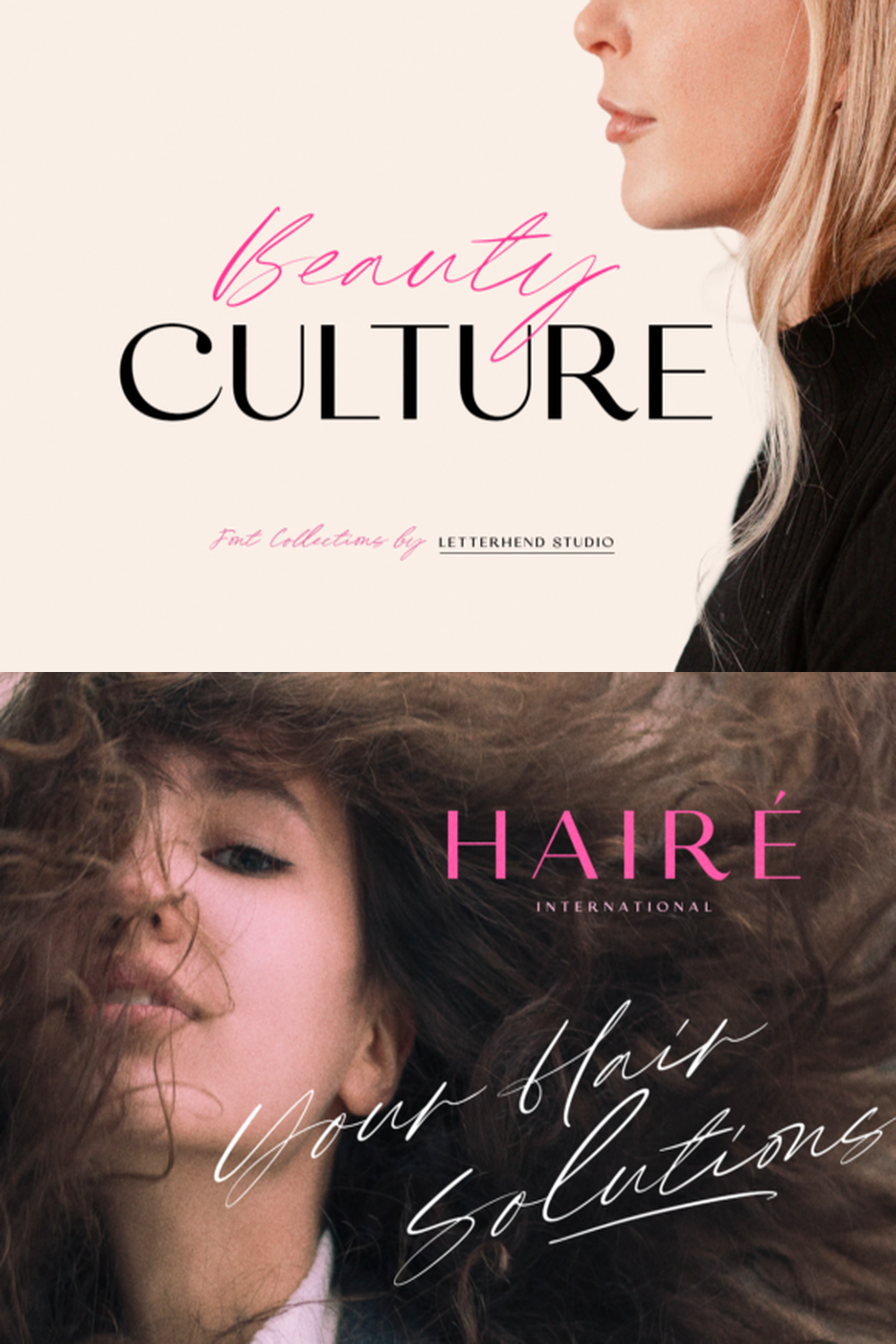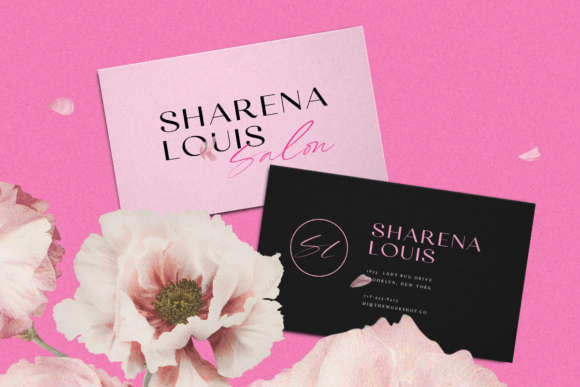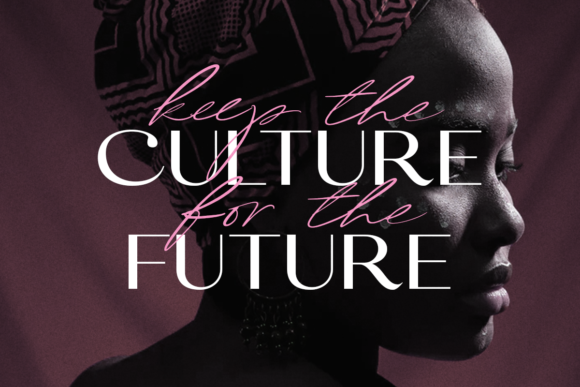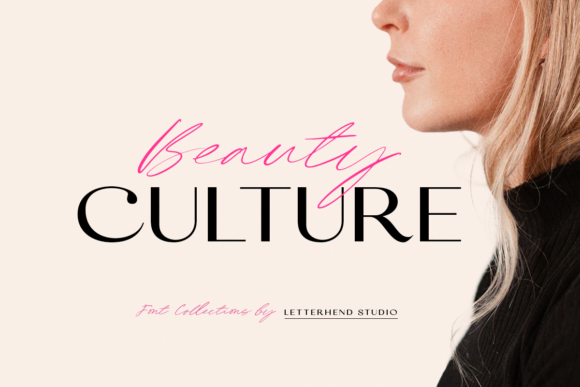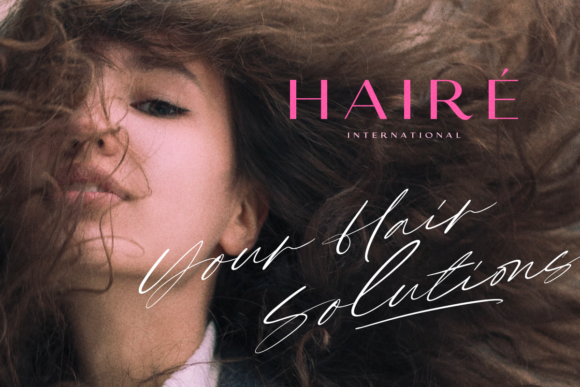
Beauty Culture Font
About the Beauty Culture Font
Meet Beauty Culture Font, a stunning font that brings a touch of elegance and professionalism to any design. Beauty Culture is a stunning and comprehensive duo font (script and sans serif), ideal for giving your projects a branded but friendly feel. The two included styles can be combined together perfectly but are also beautiful on their own.
Beauty Culture Font Usage Examples